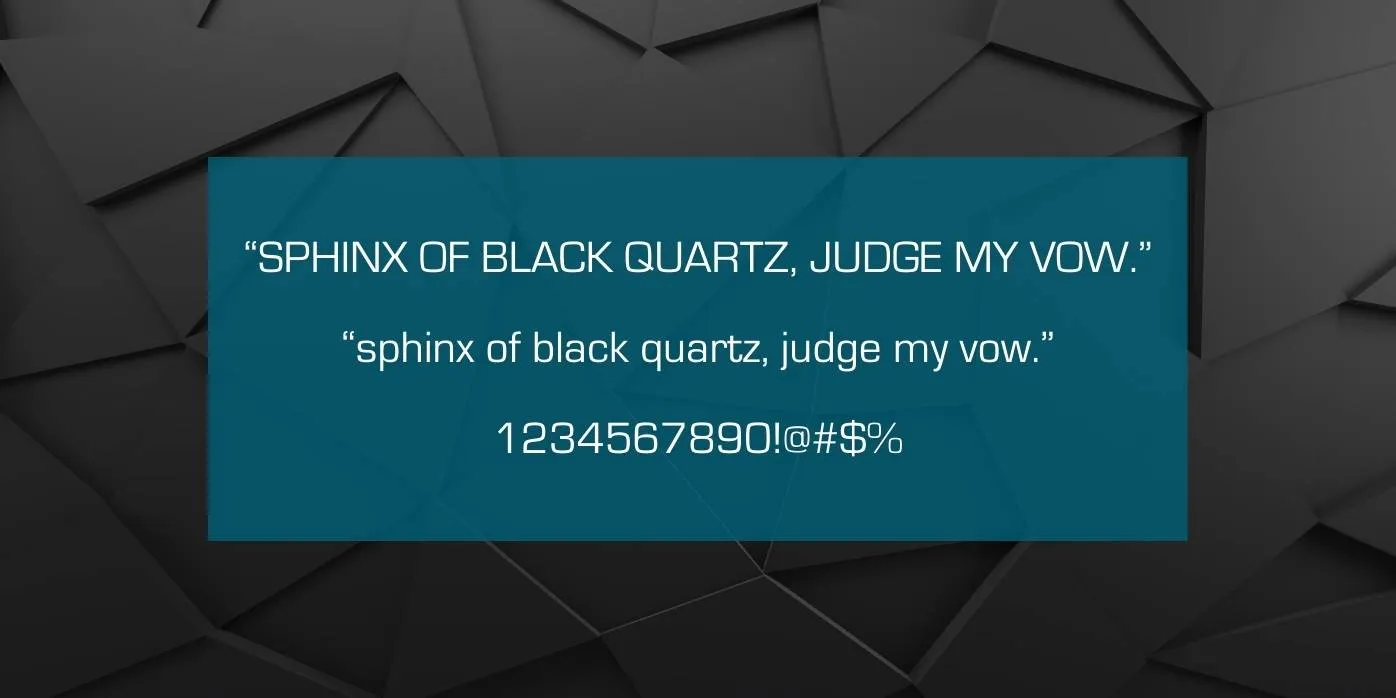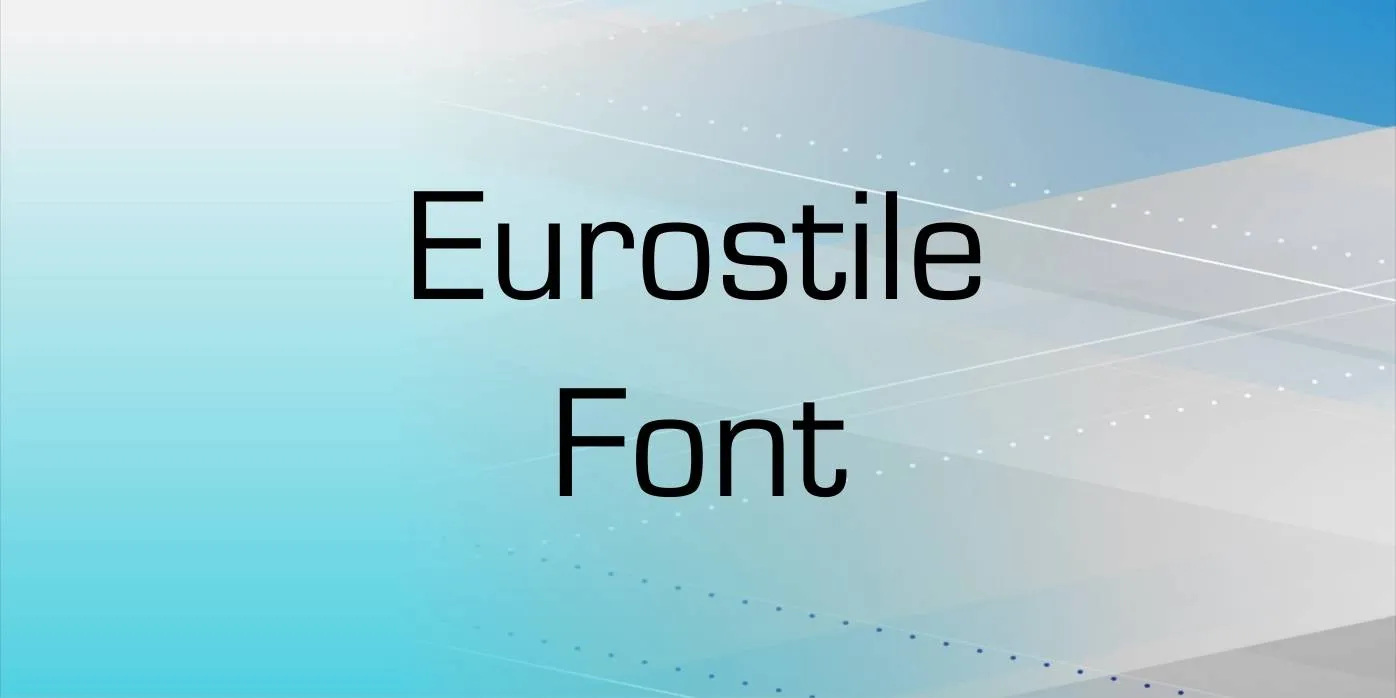
Eurostile Font
Eurostile font is a sans serif typeface developed by a famous designer named Aldo Novarese. This typeface was first released in 1962 by the Nebiolo Type Foundry. The font was an instant success and soon became one of the most popular typefaces of the 20th century. This staggering typeface is a highly versatile font used for both body copy and headlines.
It has a unique design that makes it stand out from other sans serif fonts. It is available in both regular and bold weights. You can also search it on google. Its generator tool is perfect for various designs.